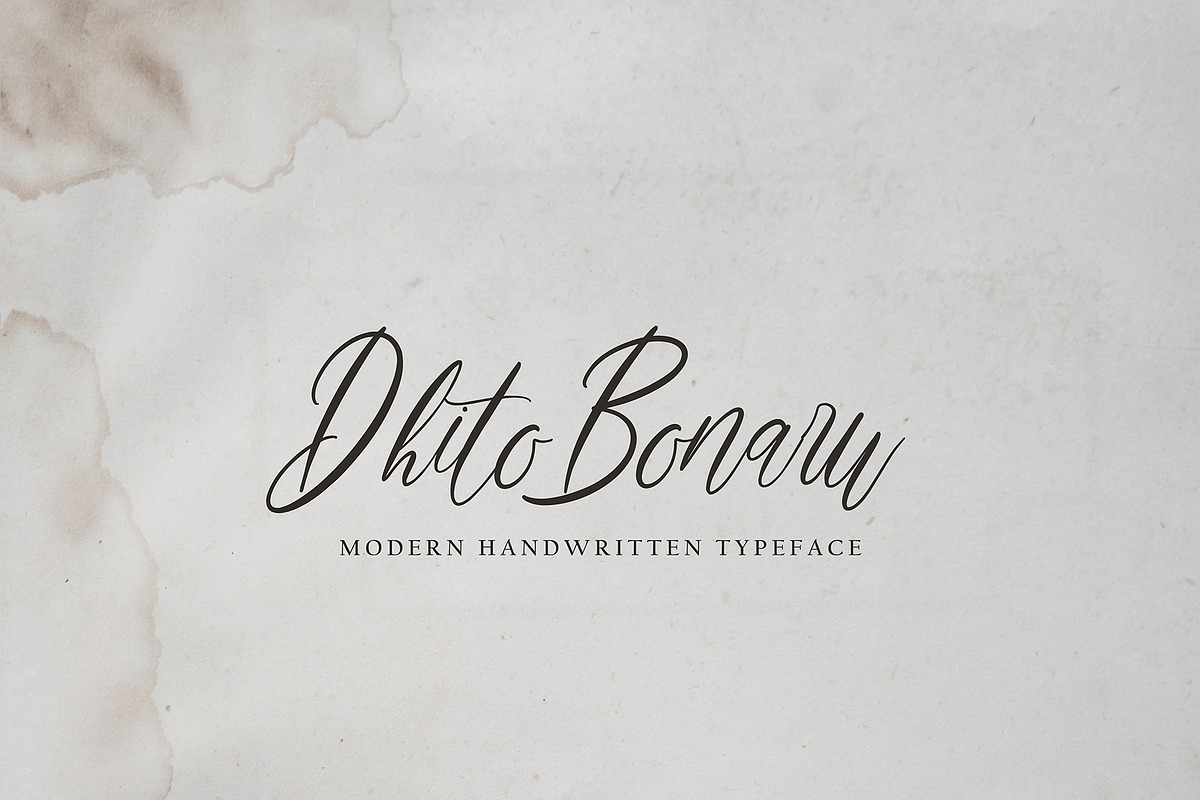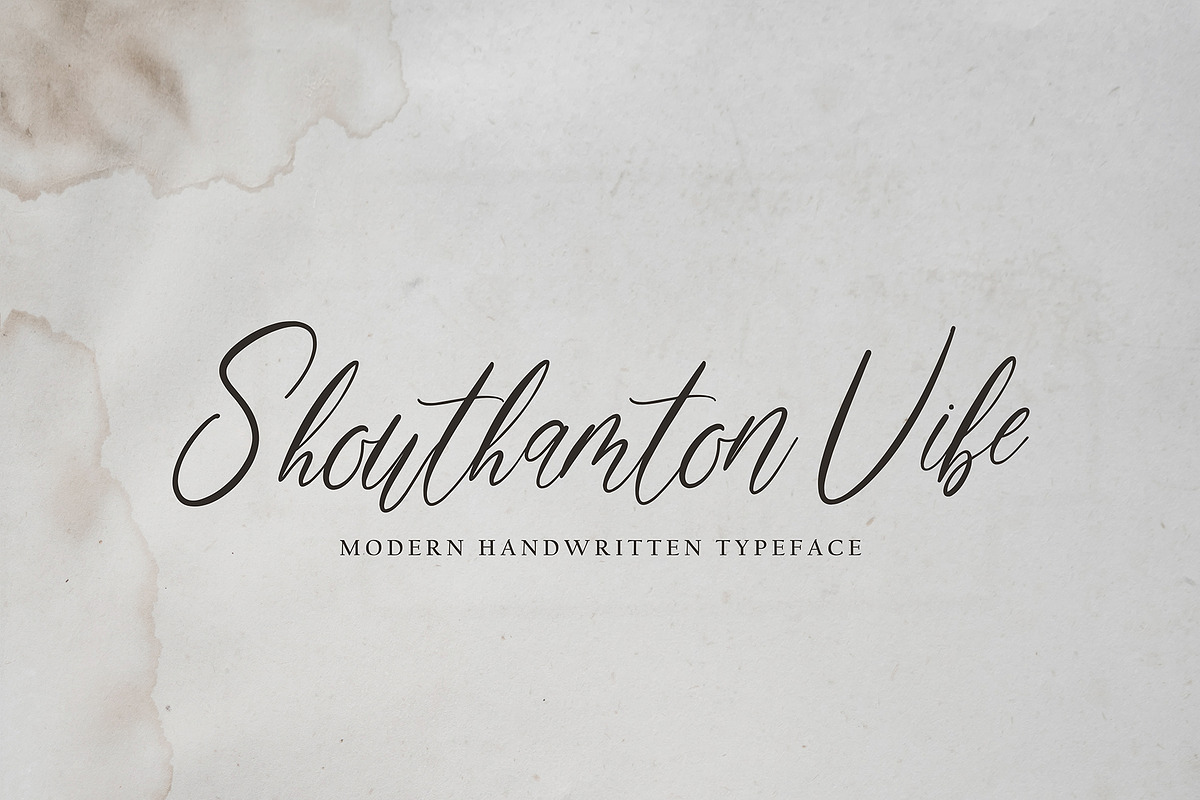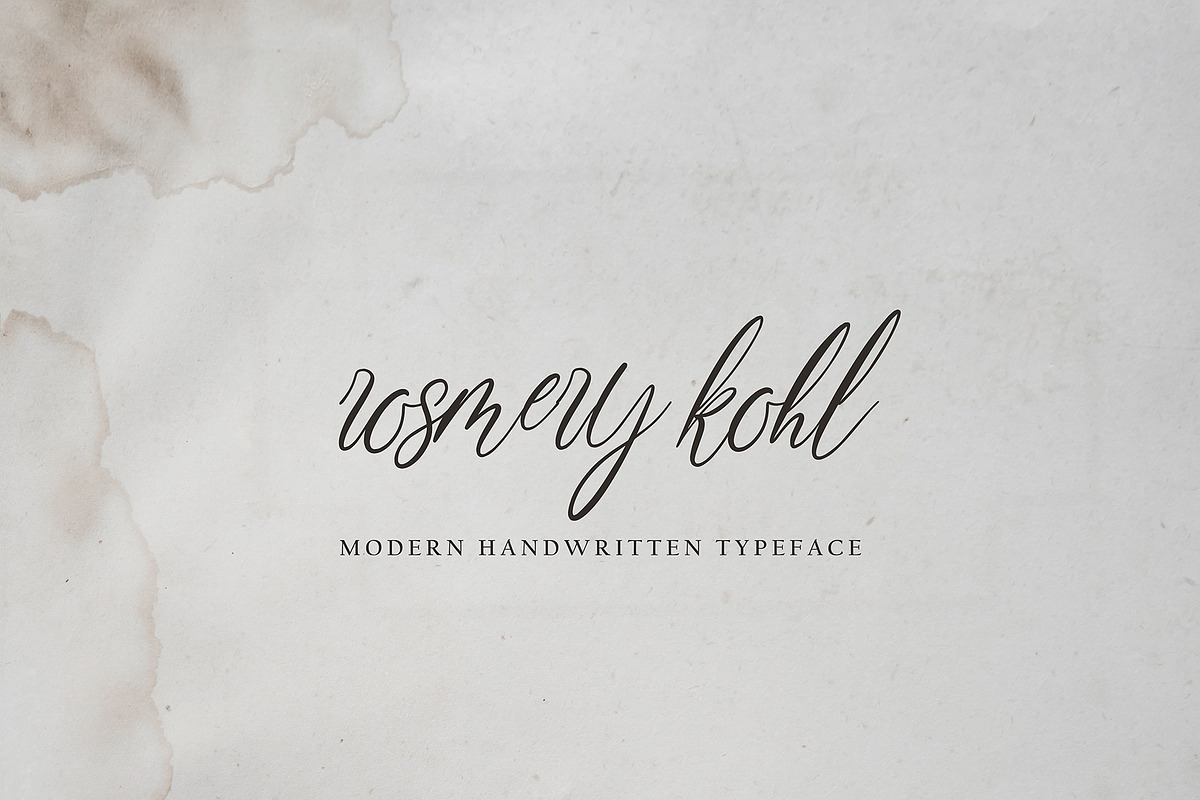
Restoration
Restoration with new style, this font will perfect for many different project ex: quotes, logo, blog header, poster, banding, letter, invitation, stationery, etc...